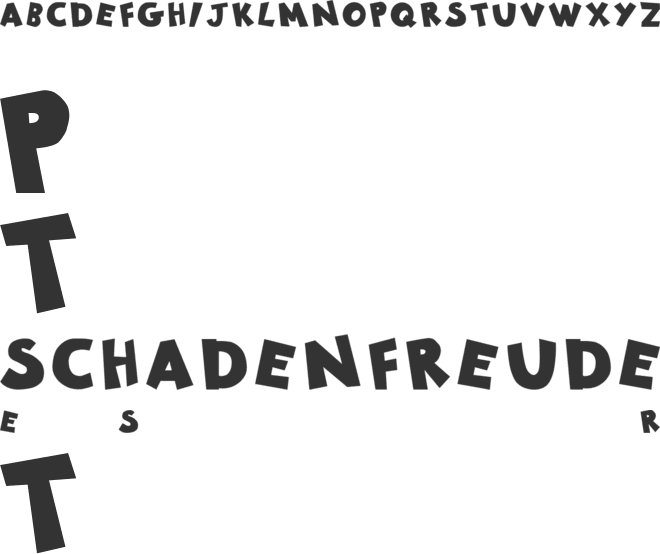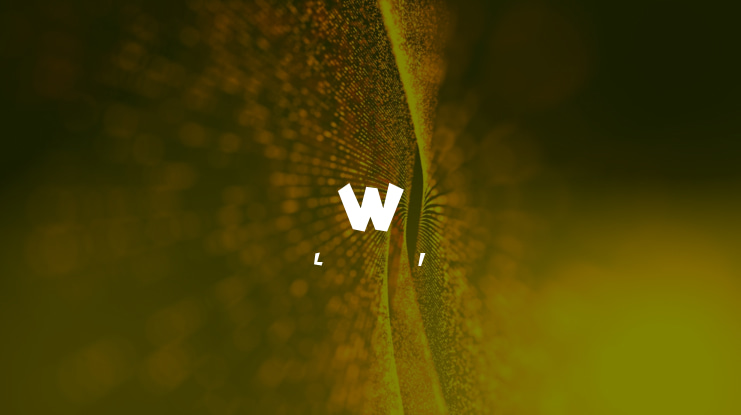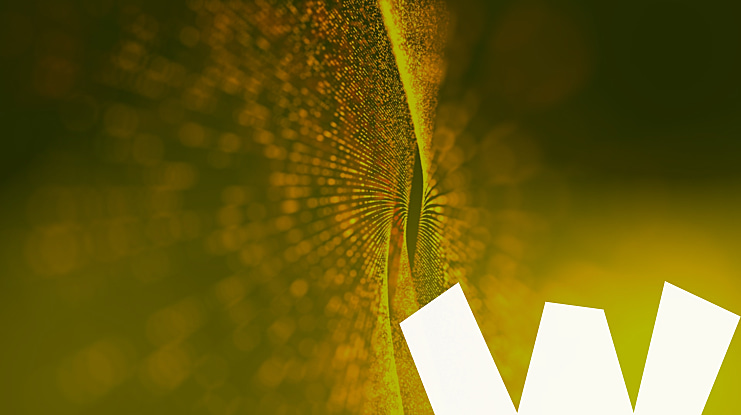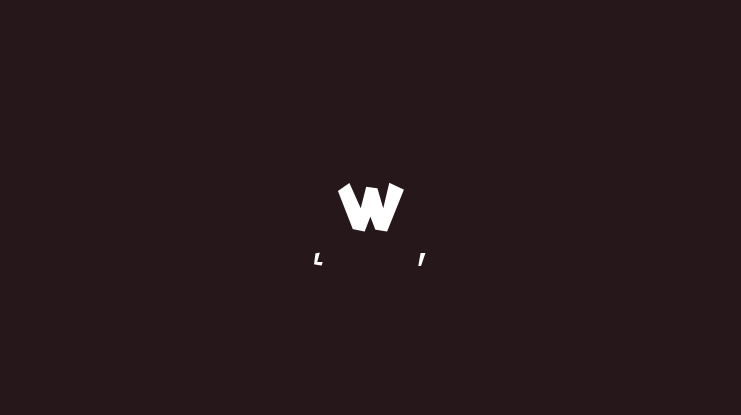
Wowzedo Font
A personally designed font that uses chunky lettering to create a fun and cool style that calls back to the wild and irreverent 90s style.